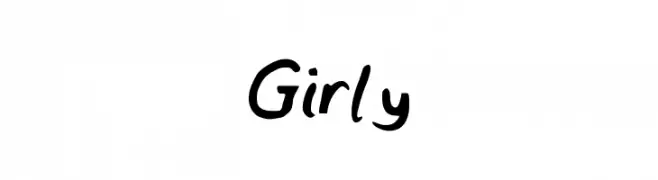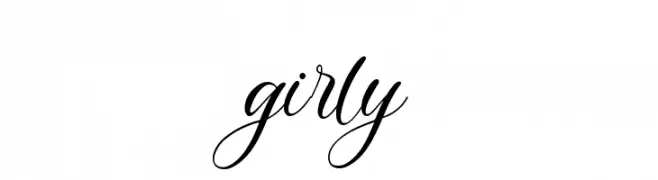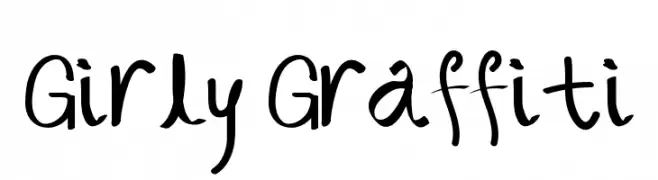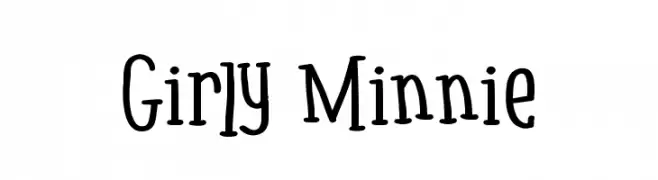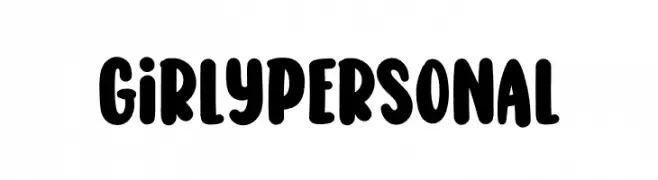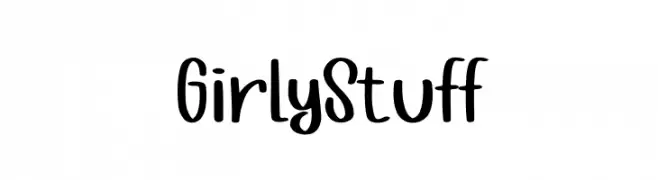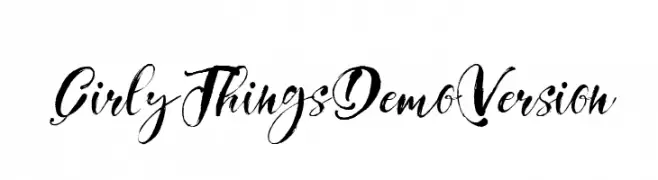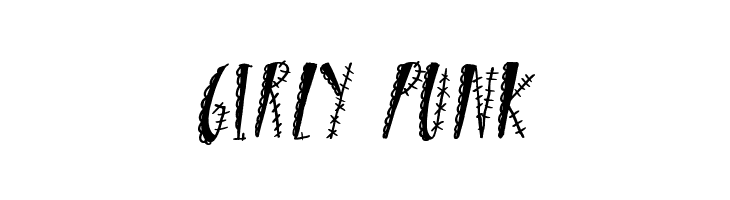
A playful, handwritten font with rounded edges and a casual style.
A playful, casual handwritten font with smooth curves and medium contrast.
An elegant, cursive font with flowing, intricate designs and graceful loops.
A playful, hand-drawn font with a whimsical and elegant style.
A bold, playful font with rounded edges and a hand-drawn feel.
A bold, punk-inspired font with thorn-like embellishments for a rebellious look.
A playful and elegant script font with calligraphic flair.